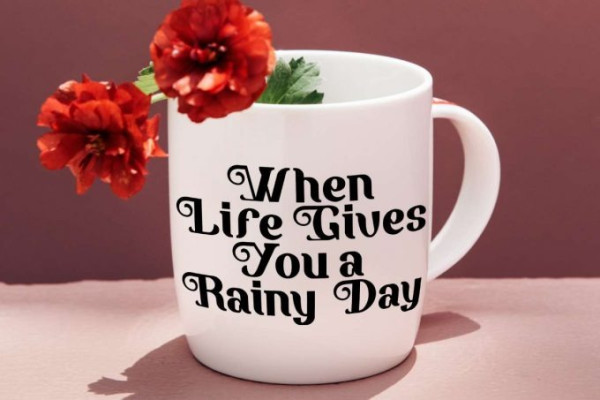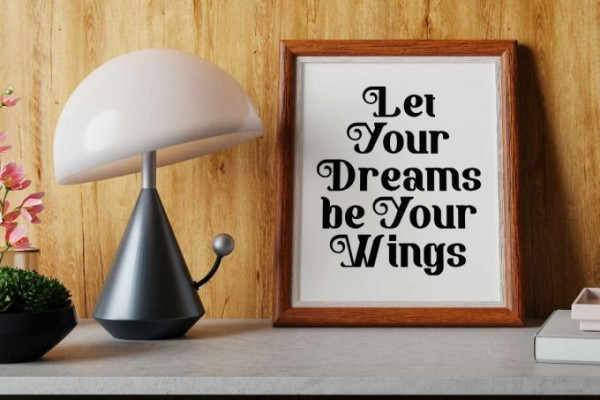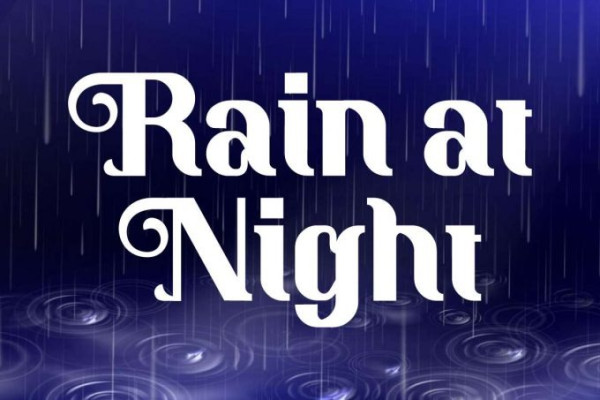
Rain At Night Font
Rain At Night Font is a classic retro inspired display font that will beautify your design and give it a soft dreamy feel. Also you will still see the cool look of this font. It will be suitable for many industries, such as café, cosmetic, event, fashion, festival, handicraft, movie, music, resort and hotel, restaurant, etc.
Rain at Night Font includes full set of Uppercase and Lowercase Basic Characters, also Numerals and Punctuation. This font would be perfect for those of you who need a modern stylish touch, such as business card, brochure, custom design, gift box, invitation, label, magazine cover, poster, product packaging, quote, screen printing, signage, stationery, website, and more!